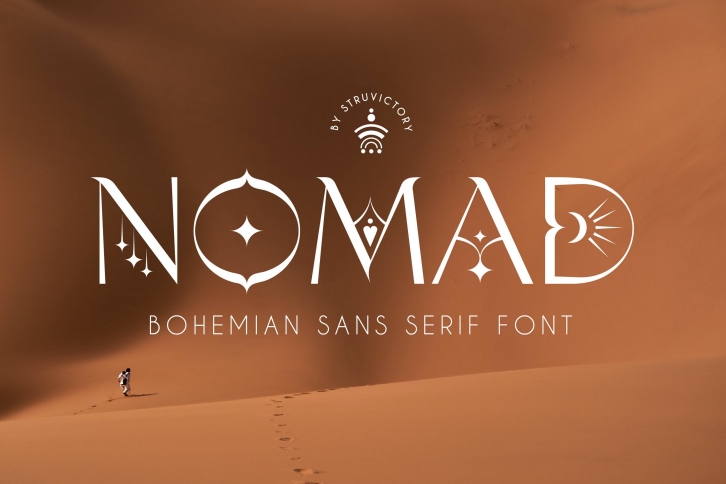
Nomad is a beautiful font that was designed by Struvictory.art. It's a great choice for designers and creatives who need such a font. It was released on February 11, 2022 and the file size is 7.50 MB. Nomad may give a more youthful, expressive and casual look to your project. It is a very beautiful, refined, elegant, and high-quality font.